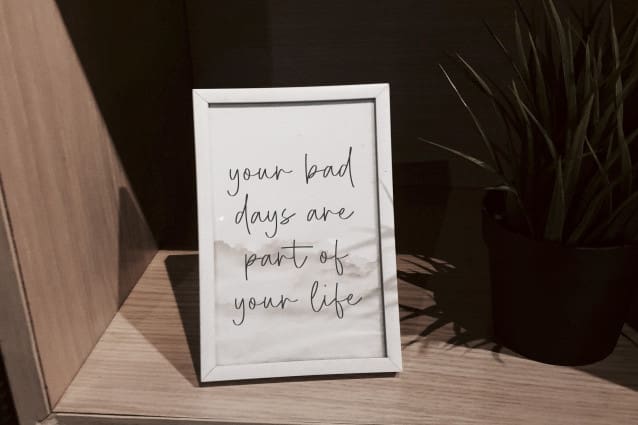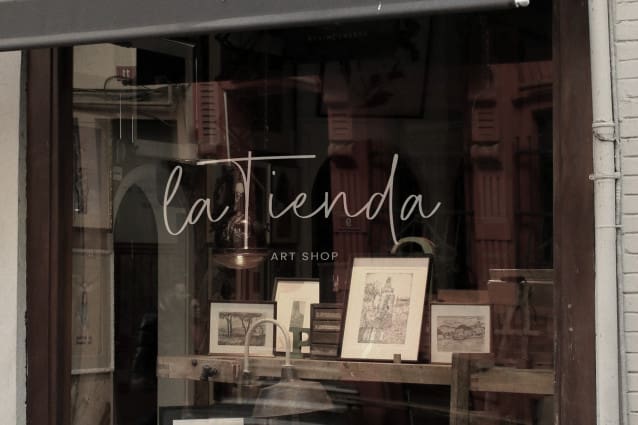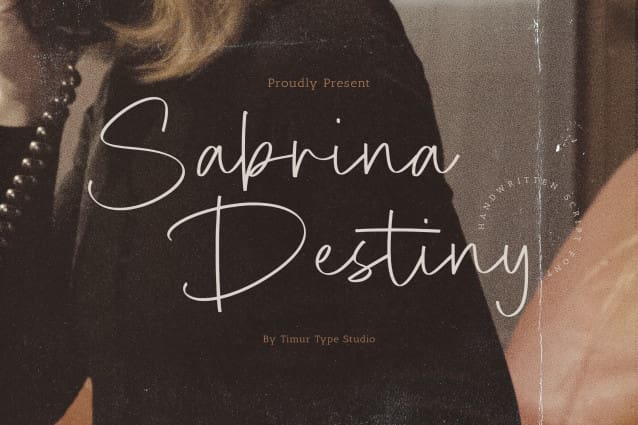
Sabrina Destiny Font
Sabrina Destiny Font is a Handwritten Script Font. This font Introducing the epitome of elegance and refinement, our exclusive luxury handwritten script font. Every stroke, meticulously crafted with precision and passion, exudes an aura of opulence and sophistication. Elevate your design projects to new heights as this exquisite typeface seamlessly blends the timeless charm of handwritten artistry with a touch of modern luxury.